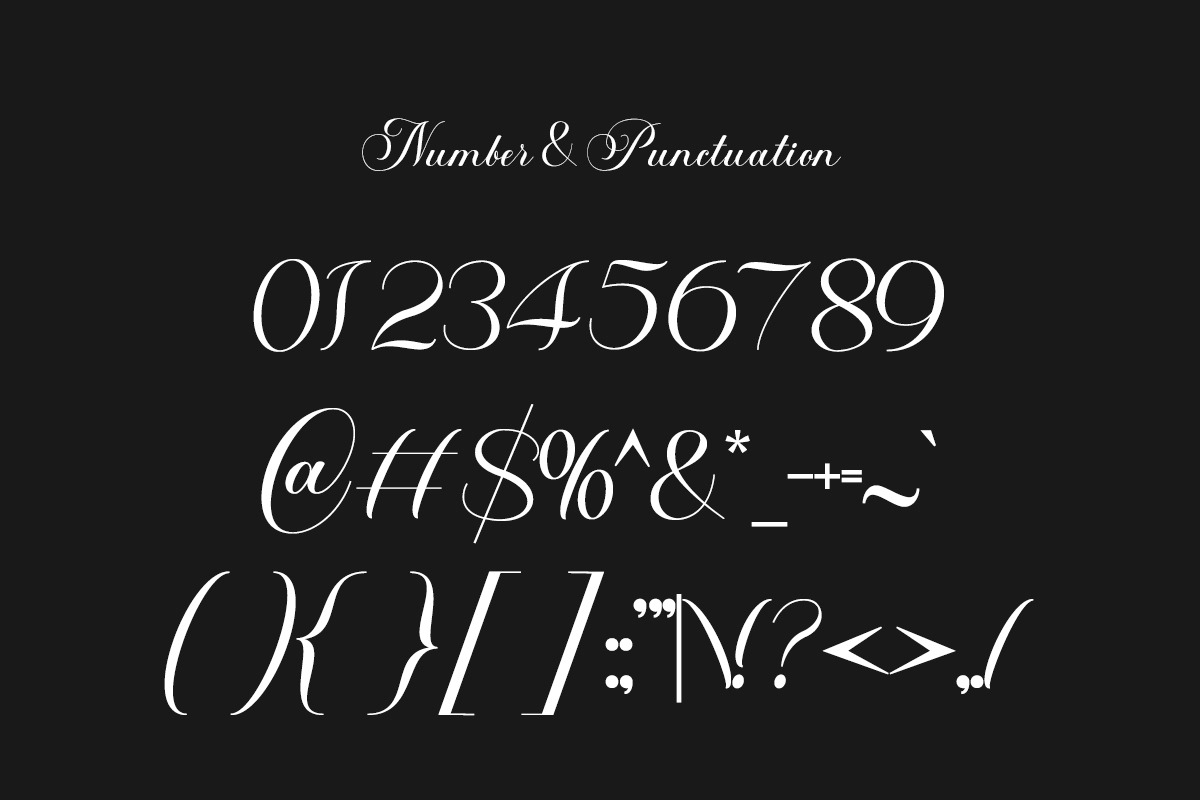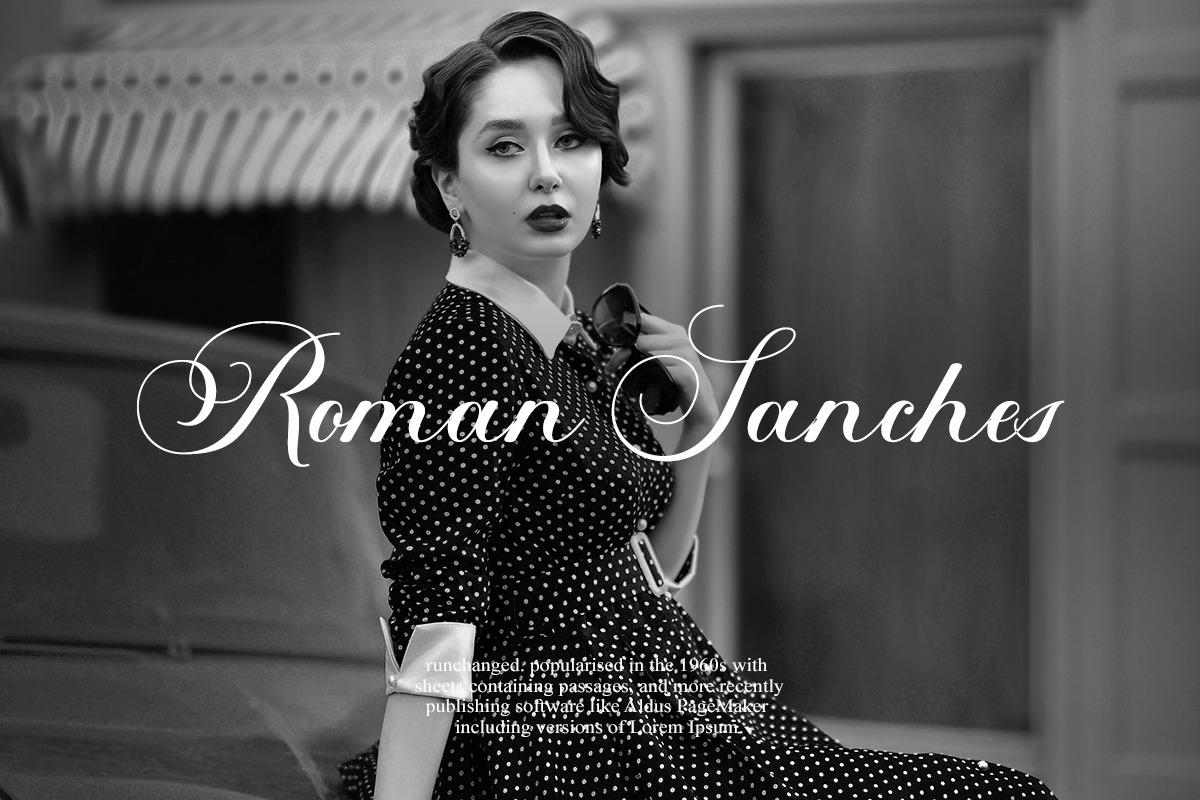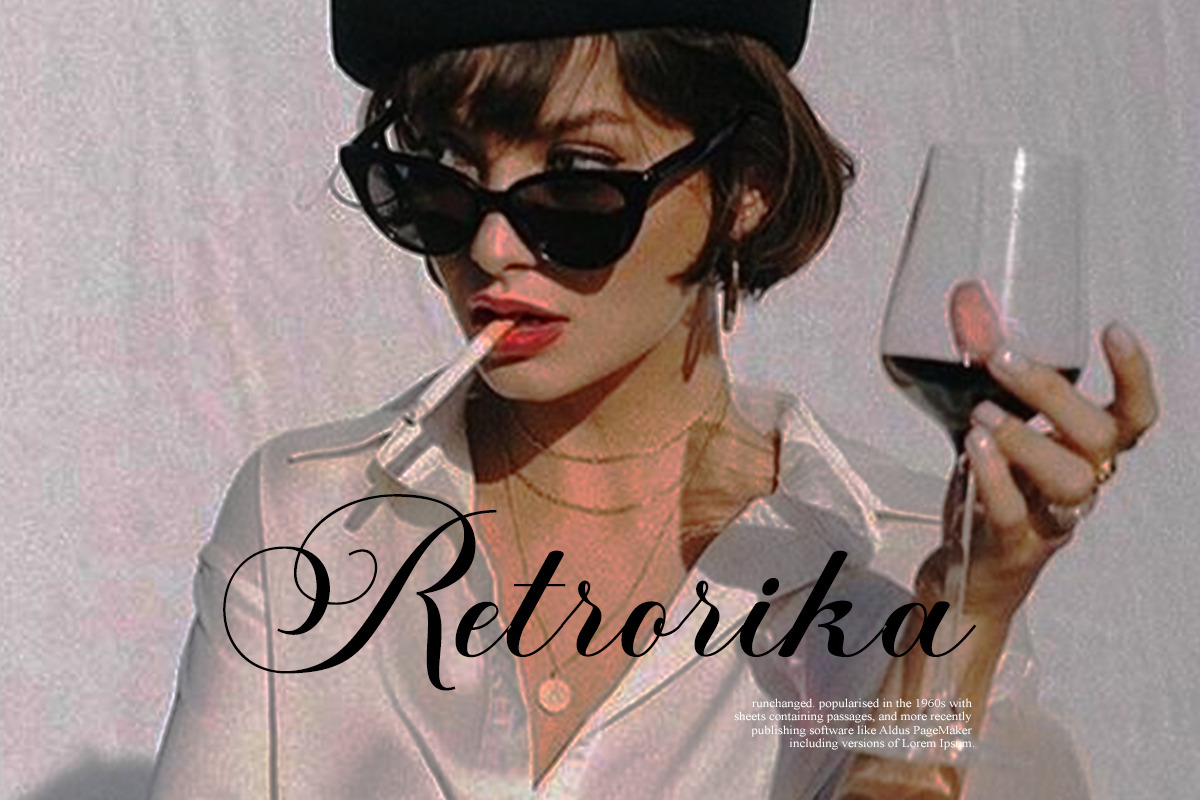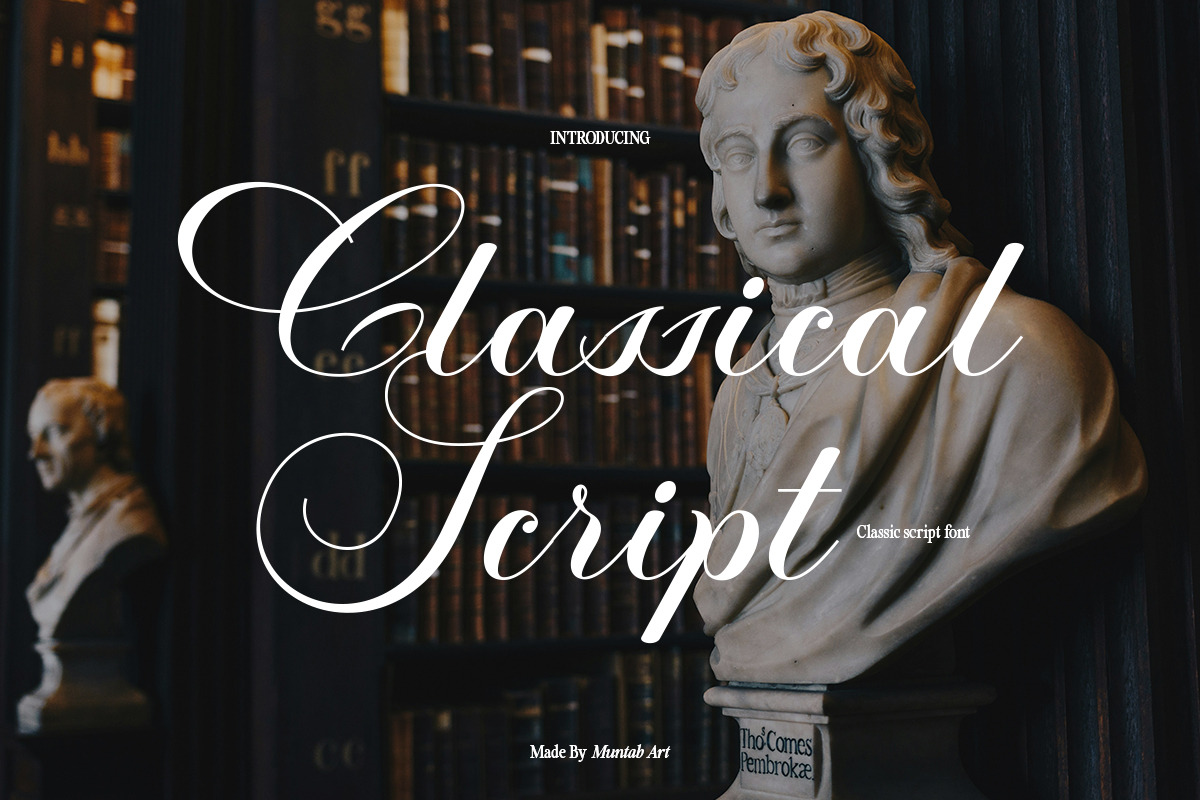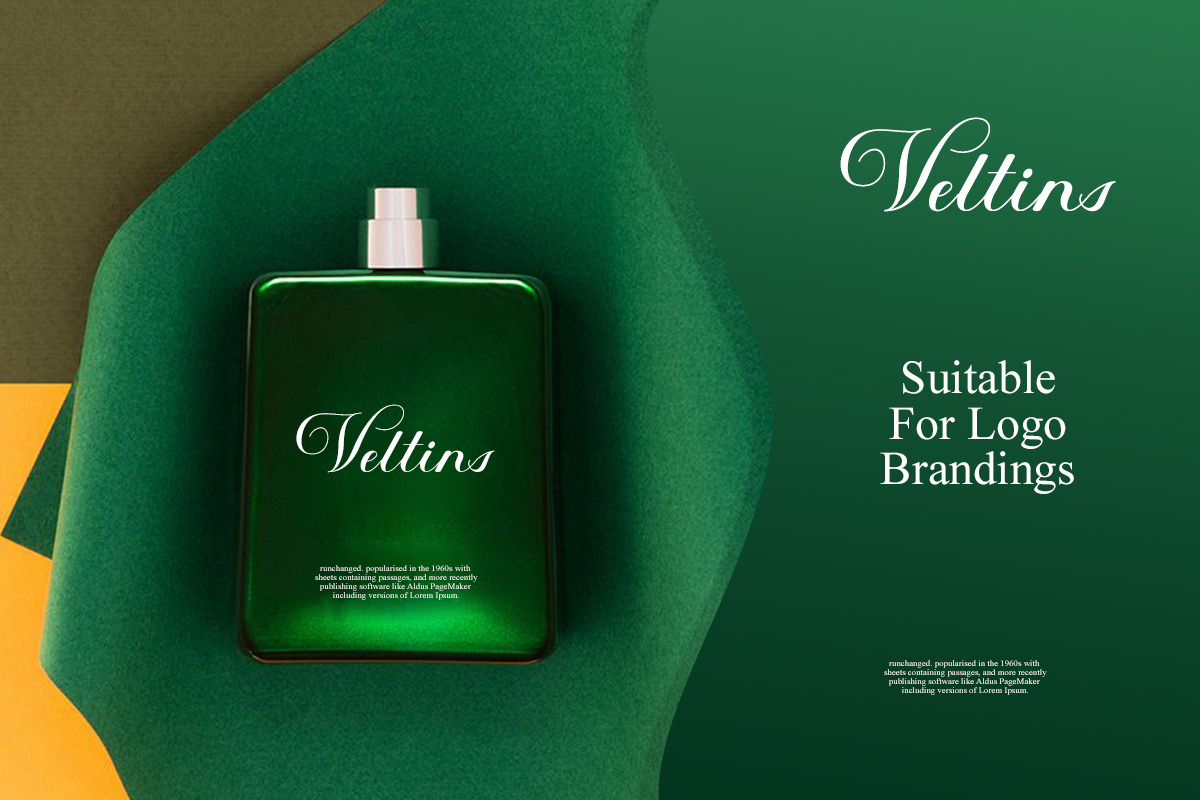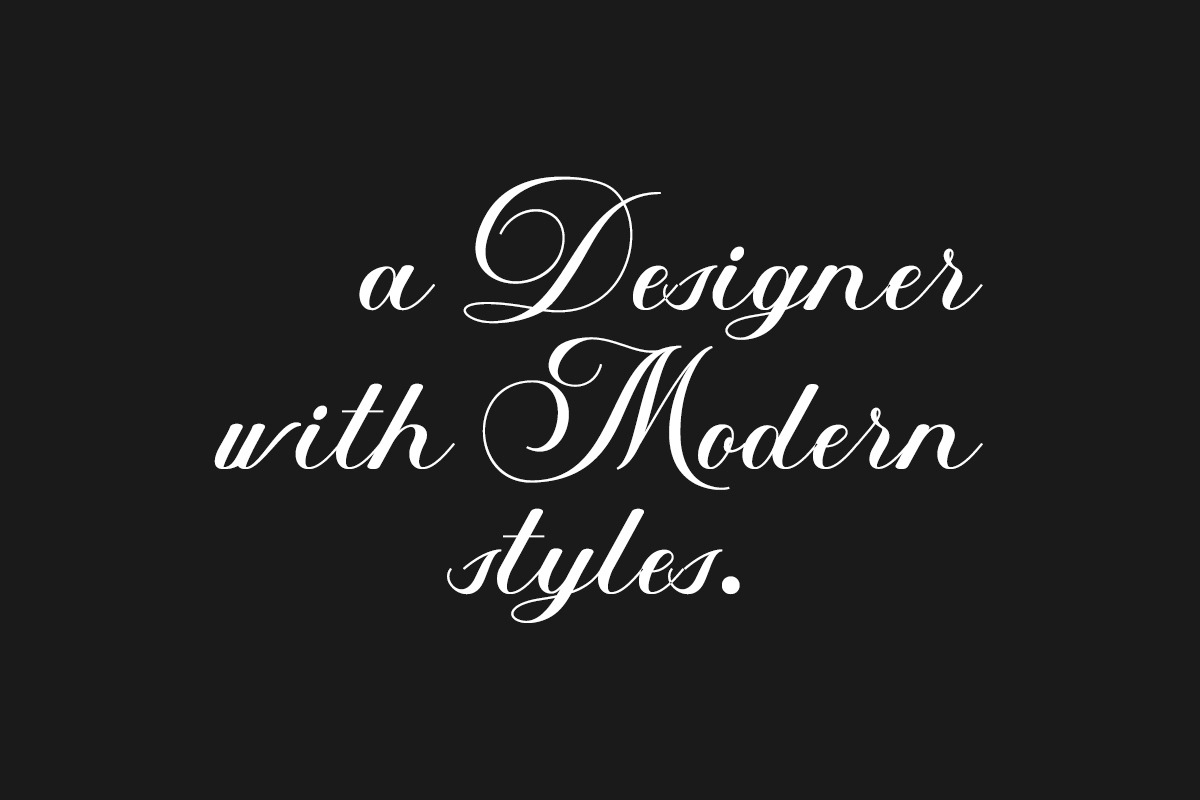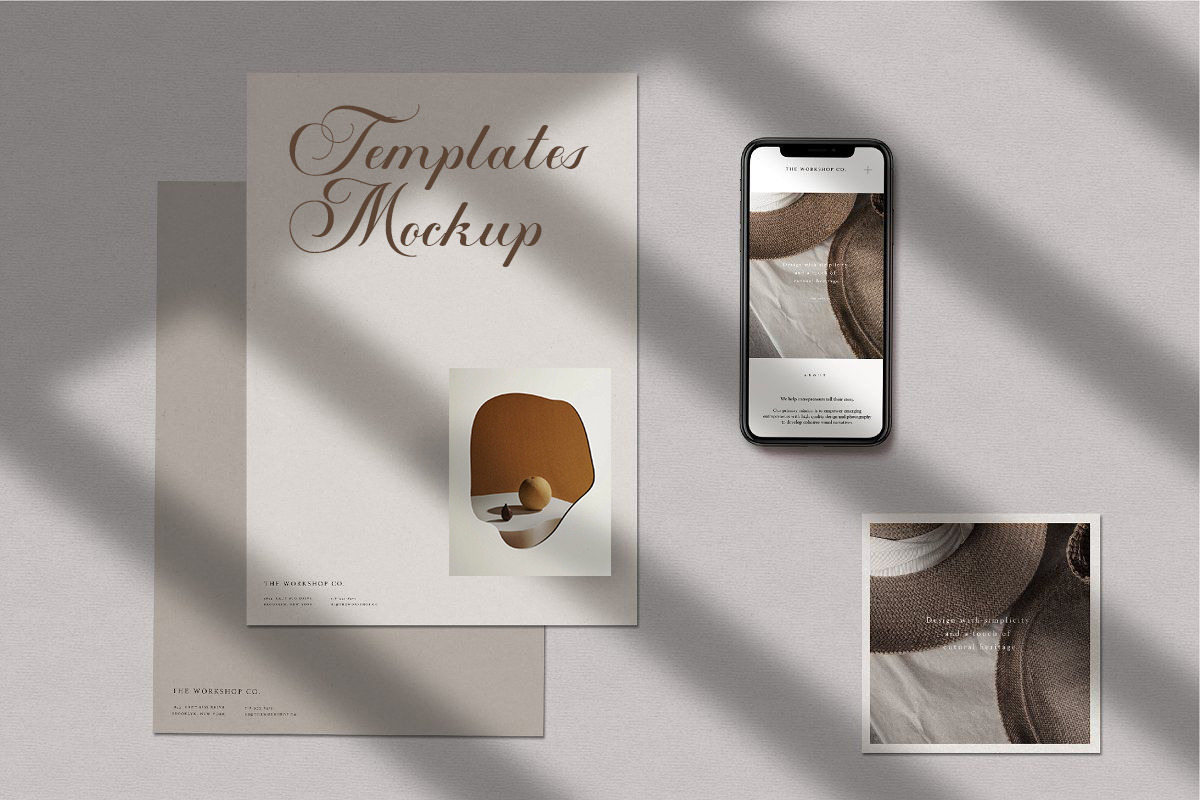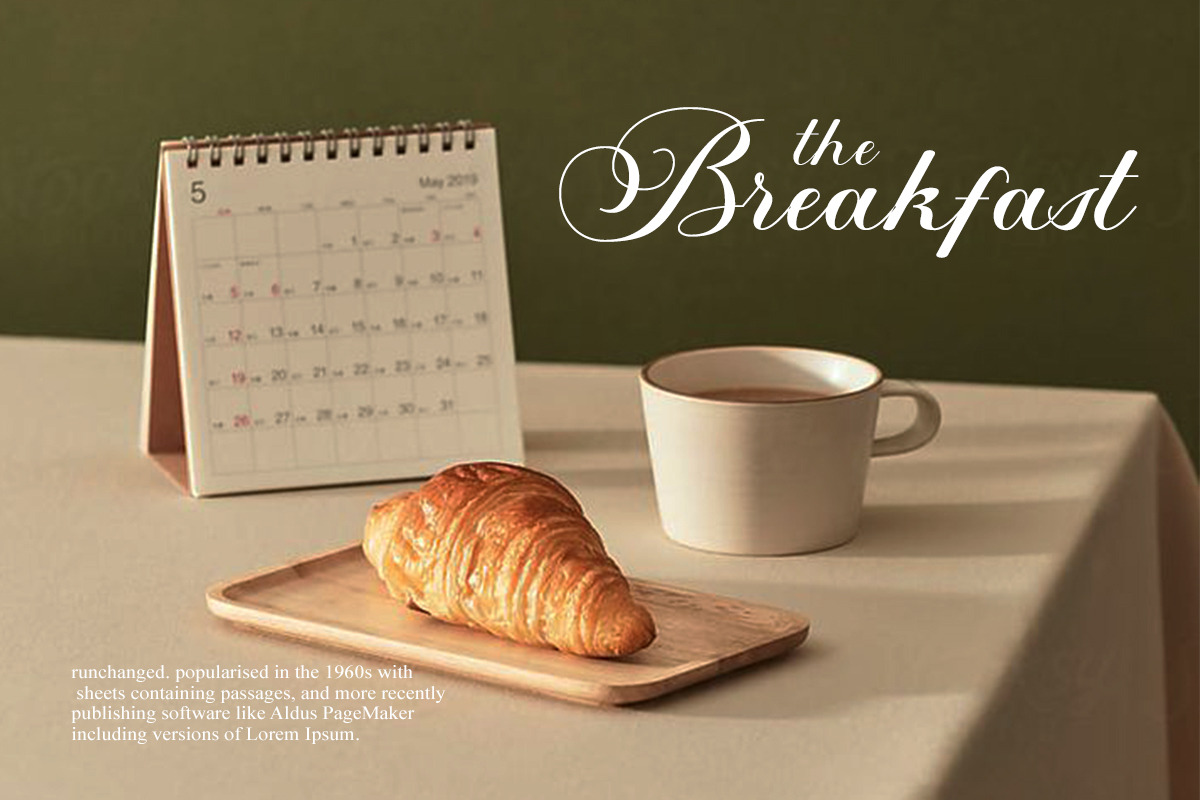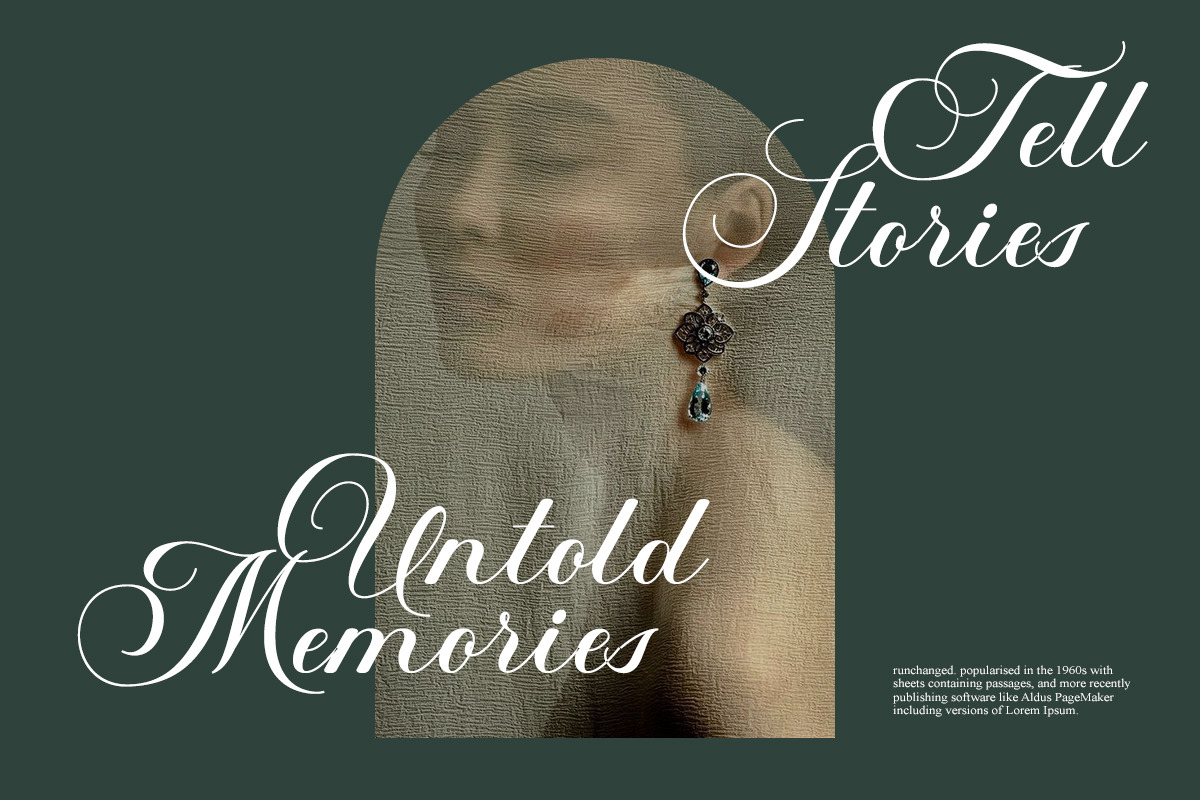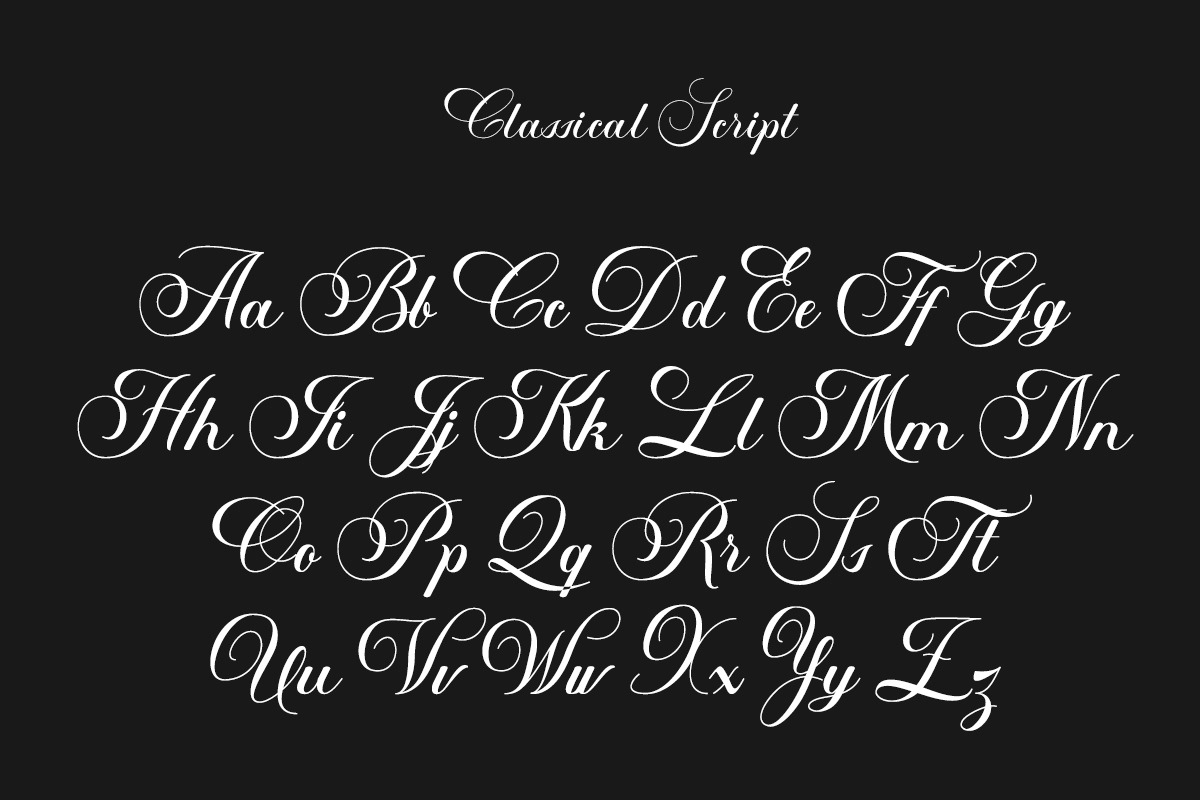
Classical Script Retro Font
Classical Script fonts includes uppercase letters, lowercase letters, numerals, a large range of punctuation. Created for poster, web design, branding, illustrations, badges and some other works.